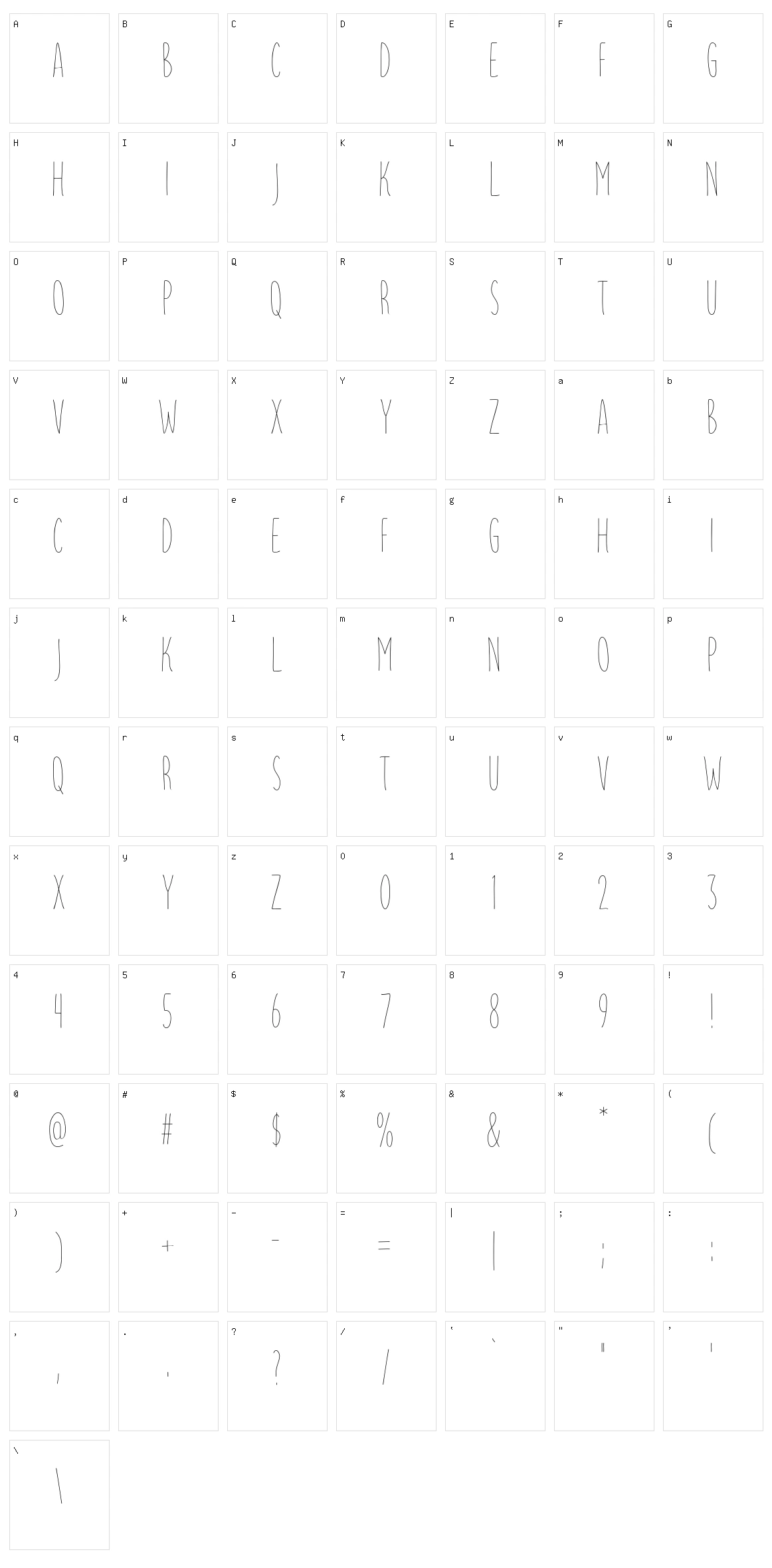
The free font Parsley Path is carefully designed by HENRIavecunK, showcasing a thoughtful balance of creativity and usability and falls under the Script font style. When you download the ZIP file, it contains only 64.69 KB of font files, making it lightweight and quick to download. Please review the license details below to understand permitted usage and distribution rights. If license information is not available, we recommend using this font for personal projects only or contacting the author directly for commercial usage permissions.